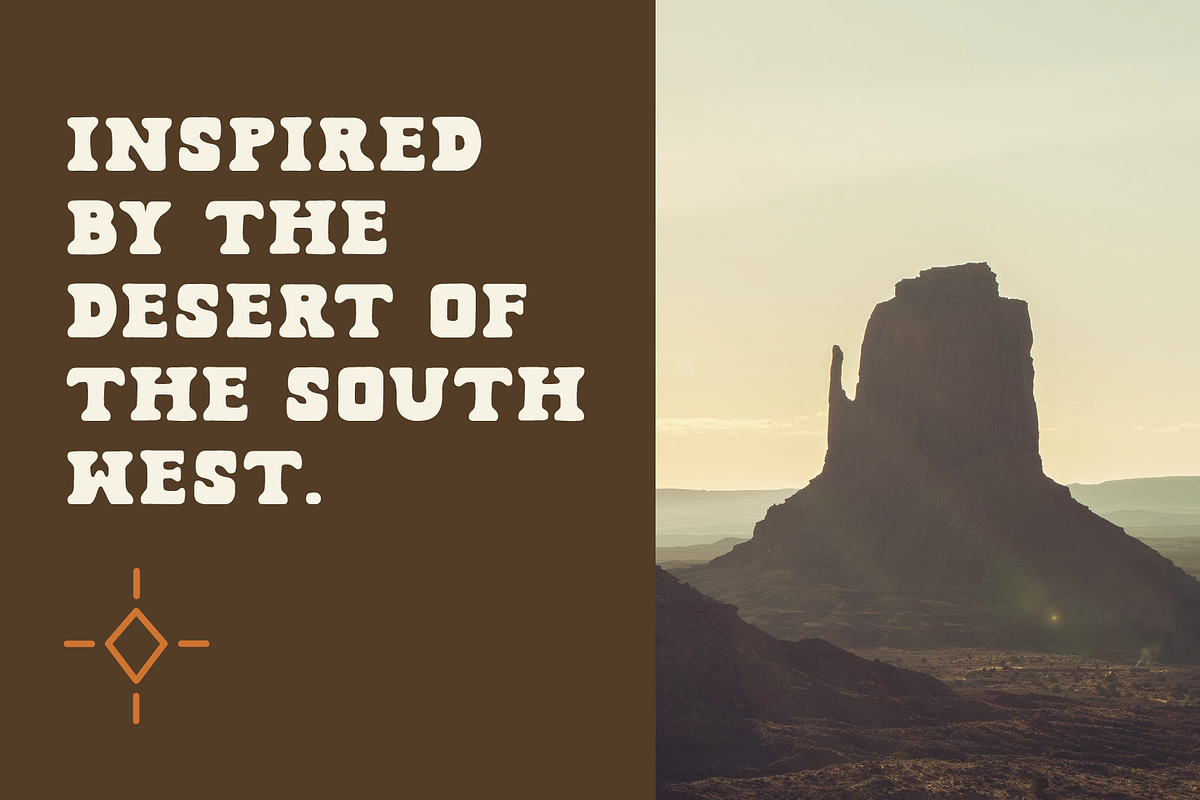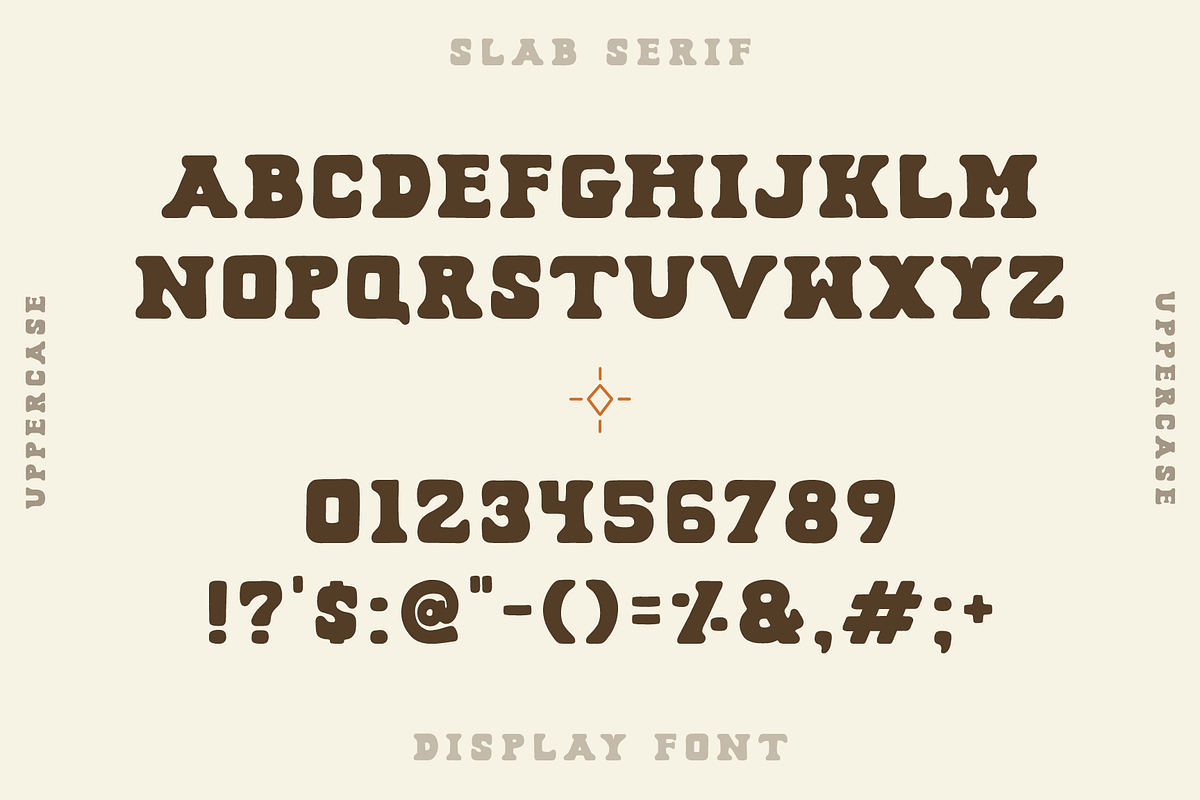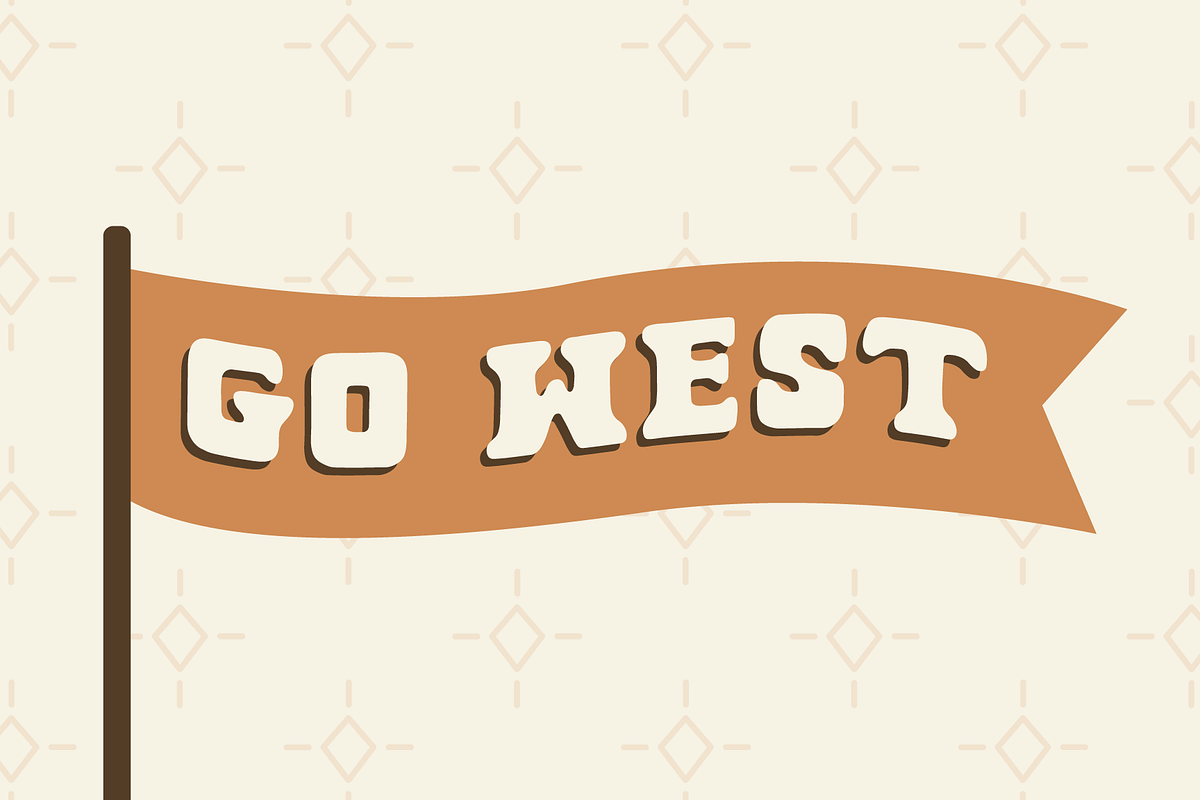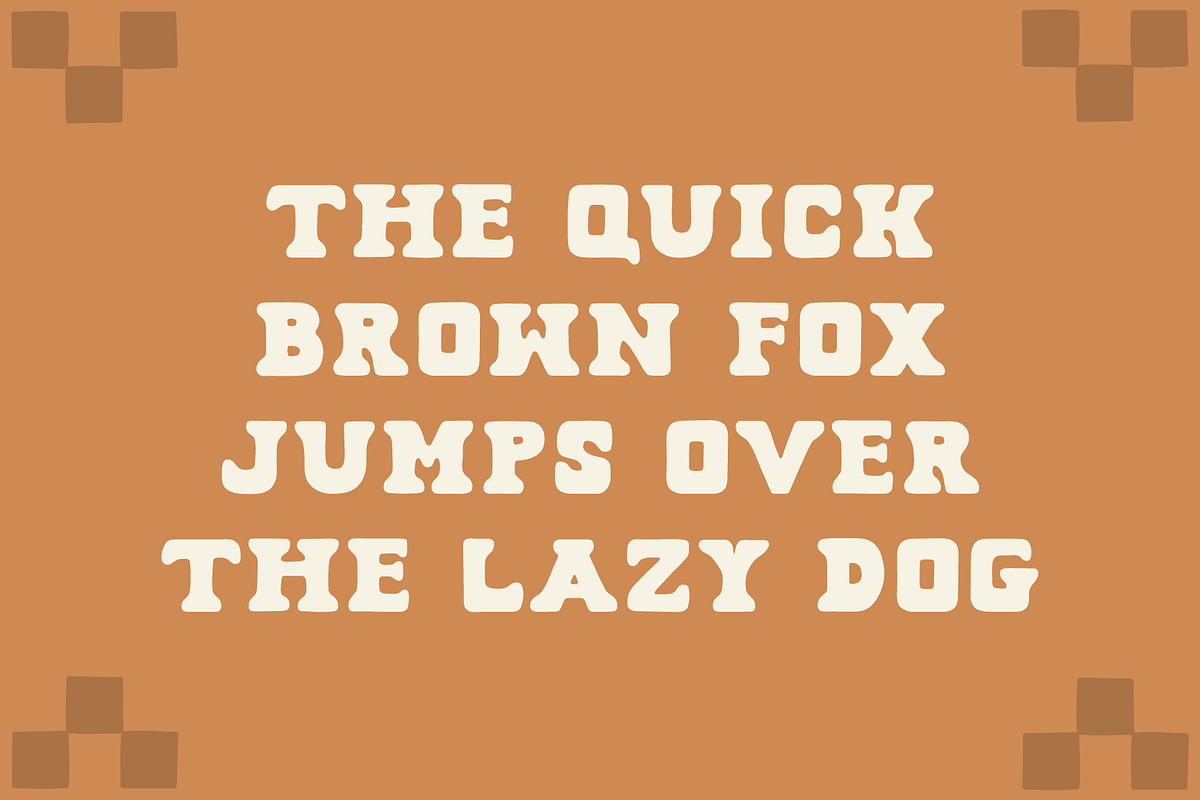
MESA MIRAGE by Meg Tay Creative
Mesa Mirage is a hand lettered slab serif display font that's western, chunky, and uppercase (only). Mesa Mirage is perfect for your next design project and is ideal for logos and title texts with a western or southwest desert vibe.